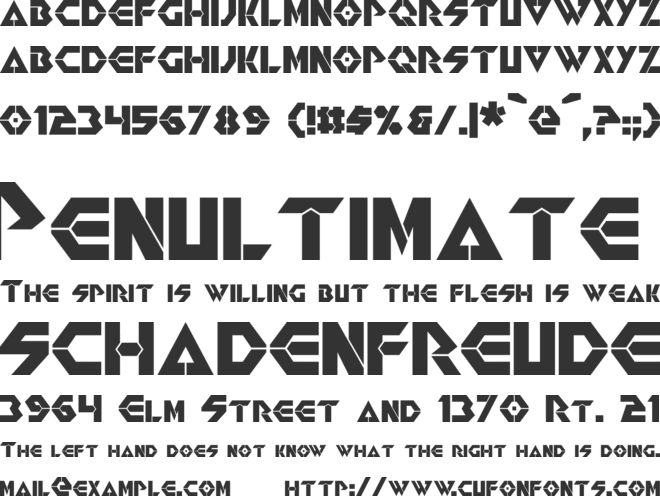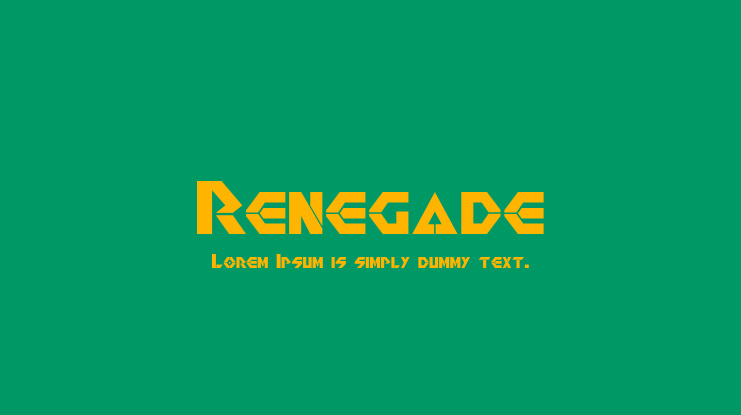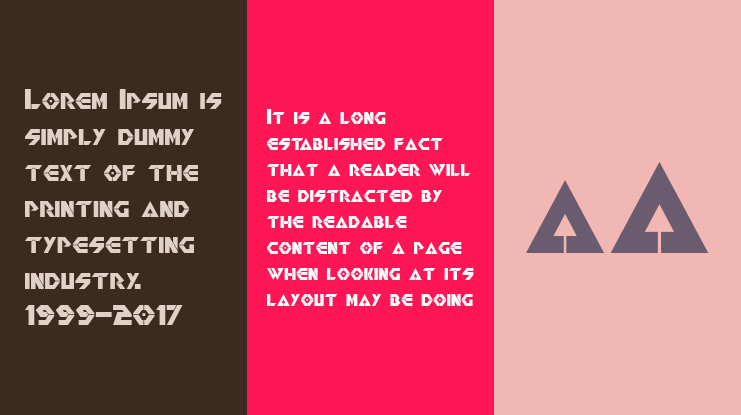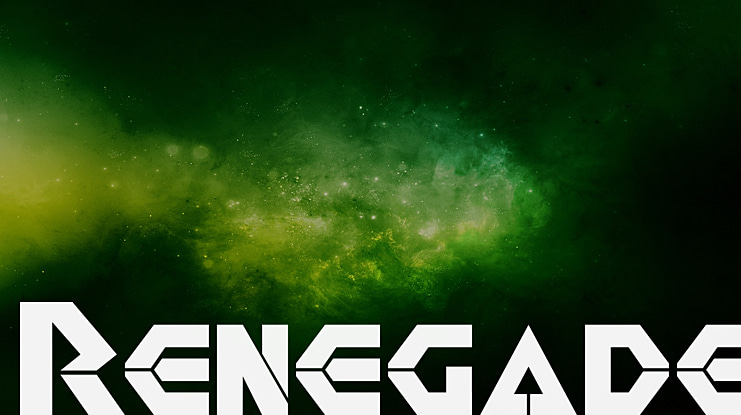
Renegade Font Family
Renegade is a sharp, angular science-type face designed to resemble science-fiction stencils. It is heavily based on the product titles from FASAs Renegade Legion series of combat games, popularized in the 1980s. Includes full alphanumerics, extended punctuation, Euro. Includes regular and italic faces.